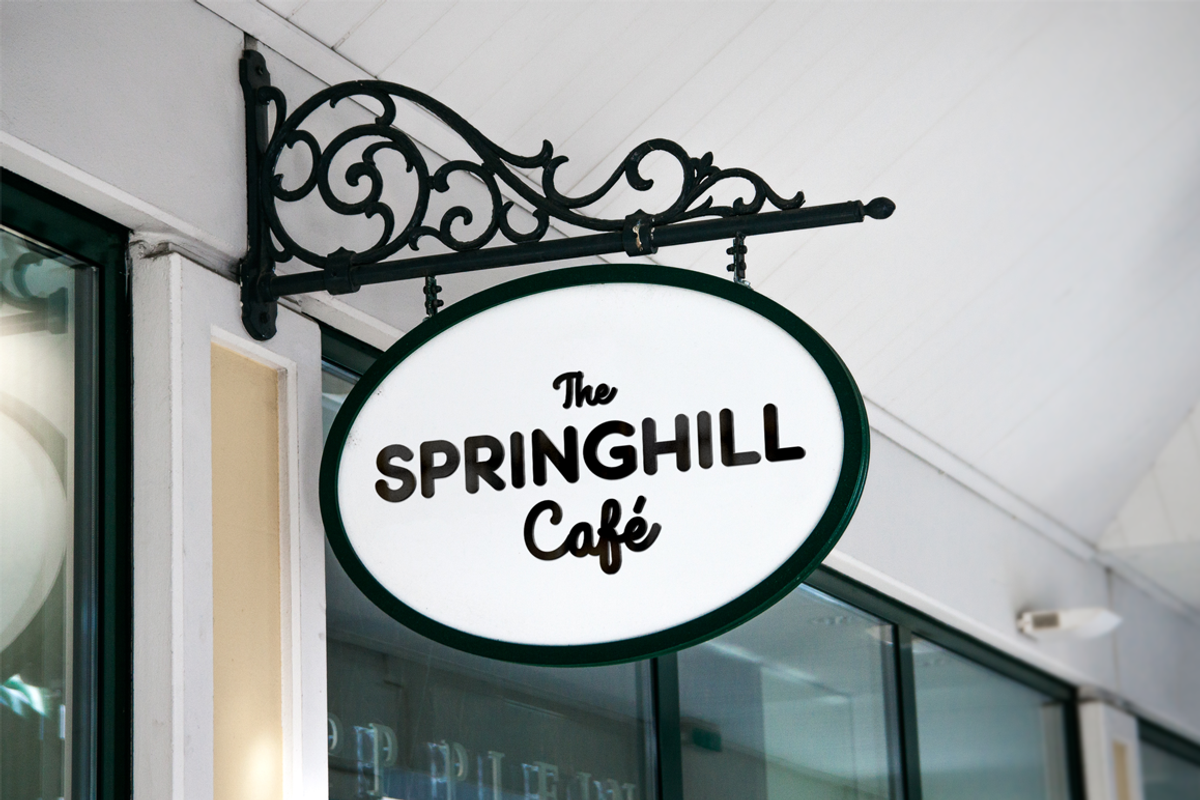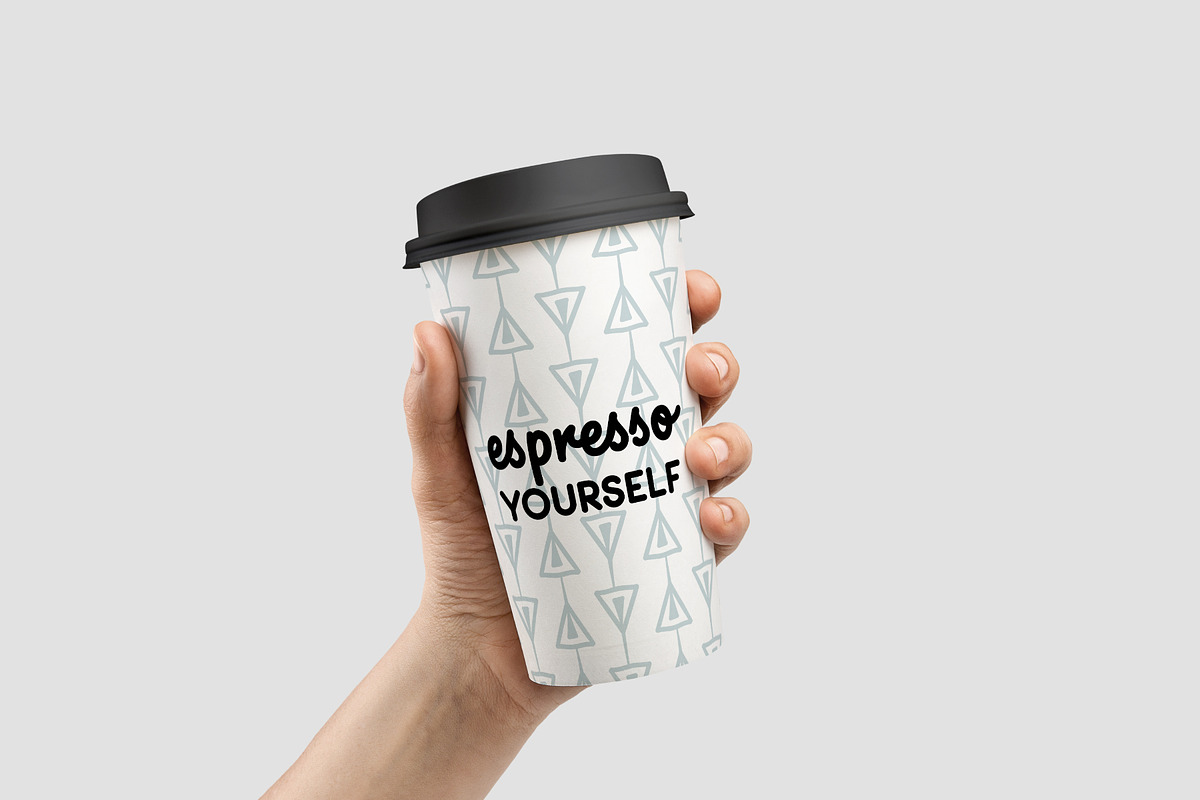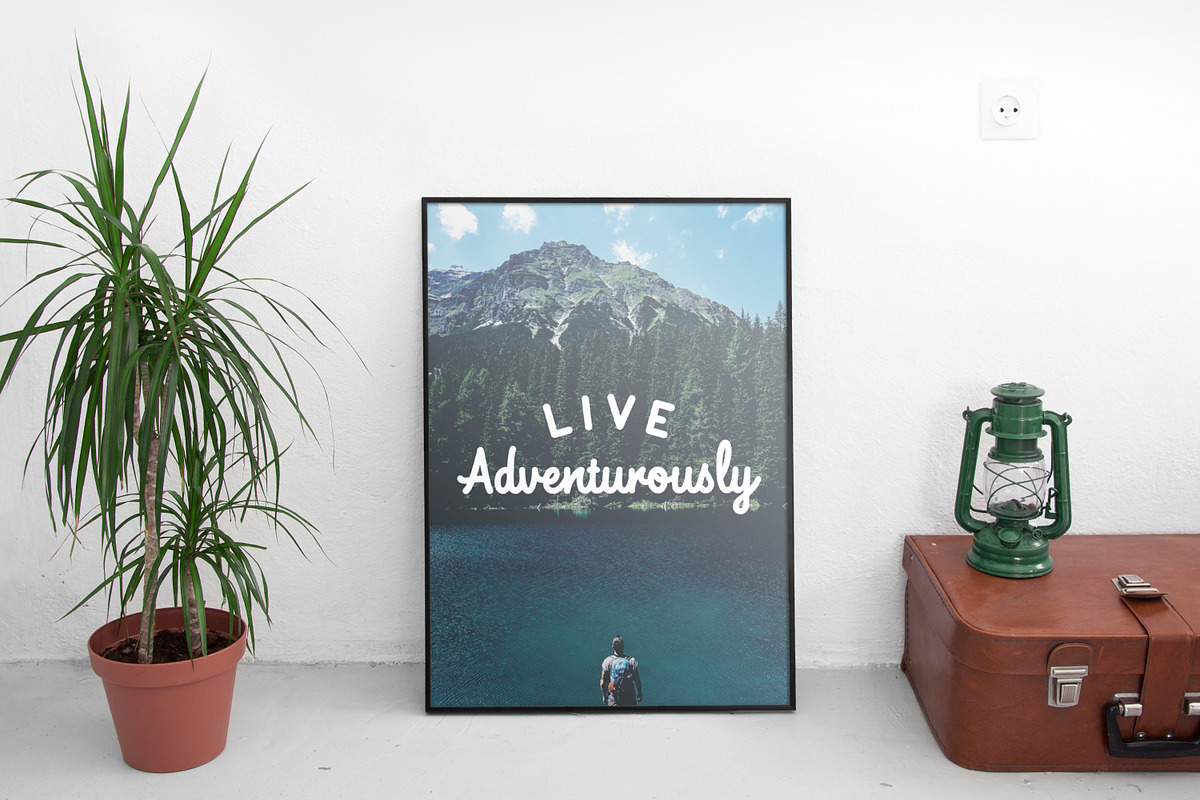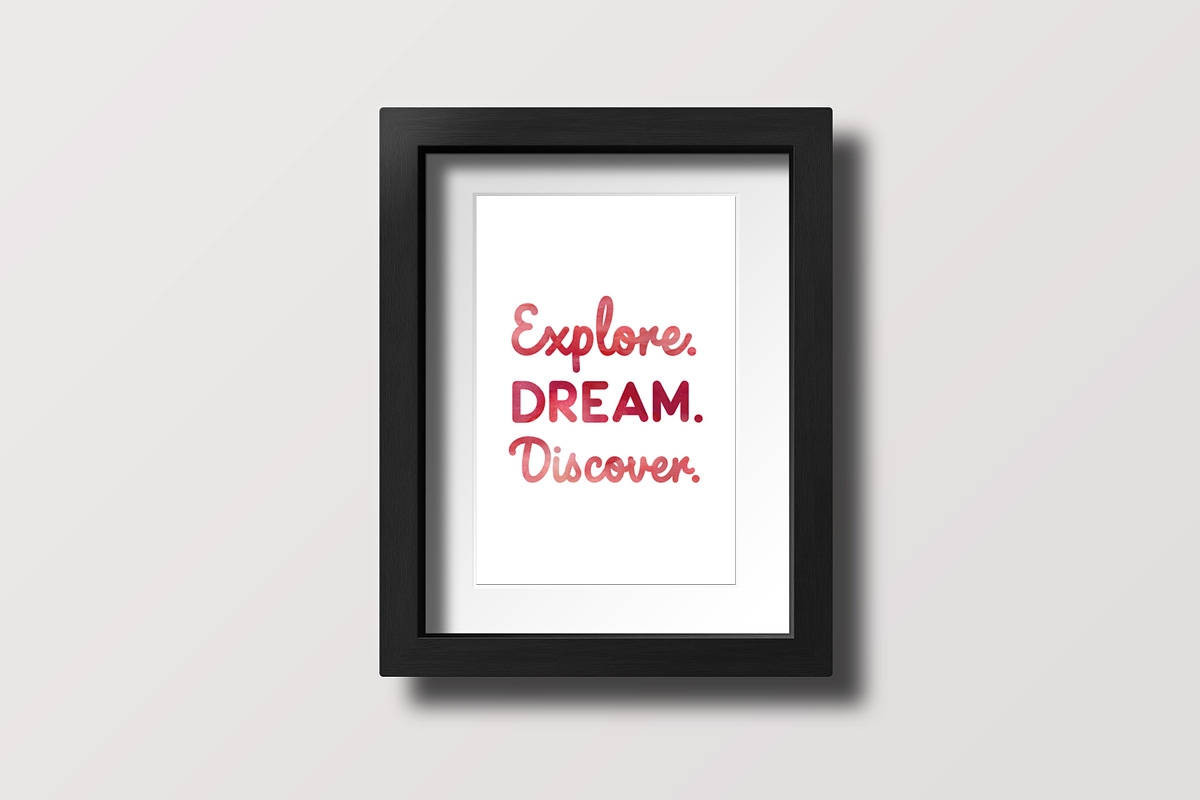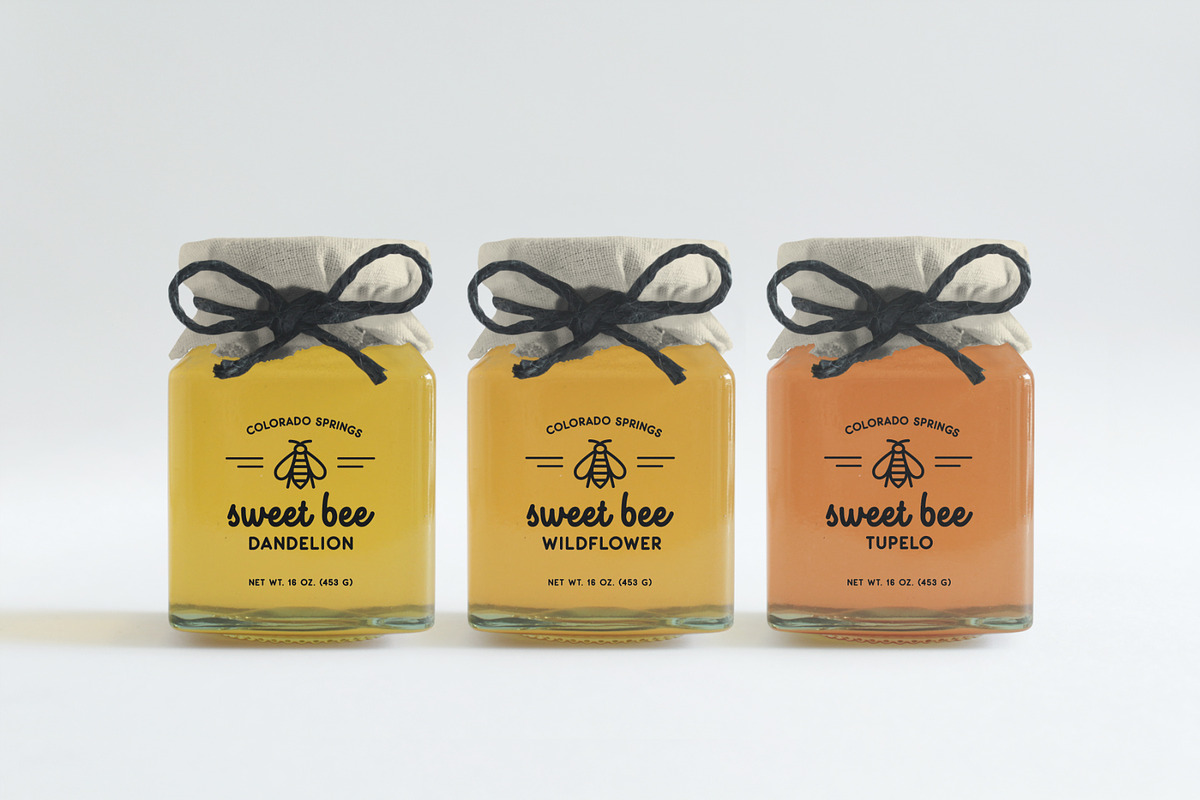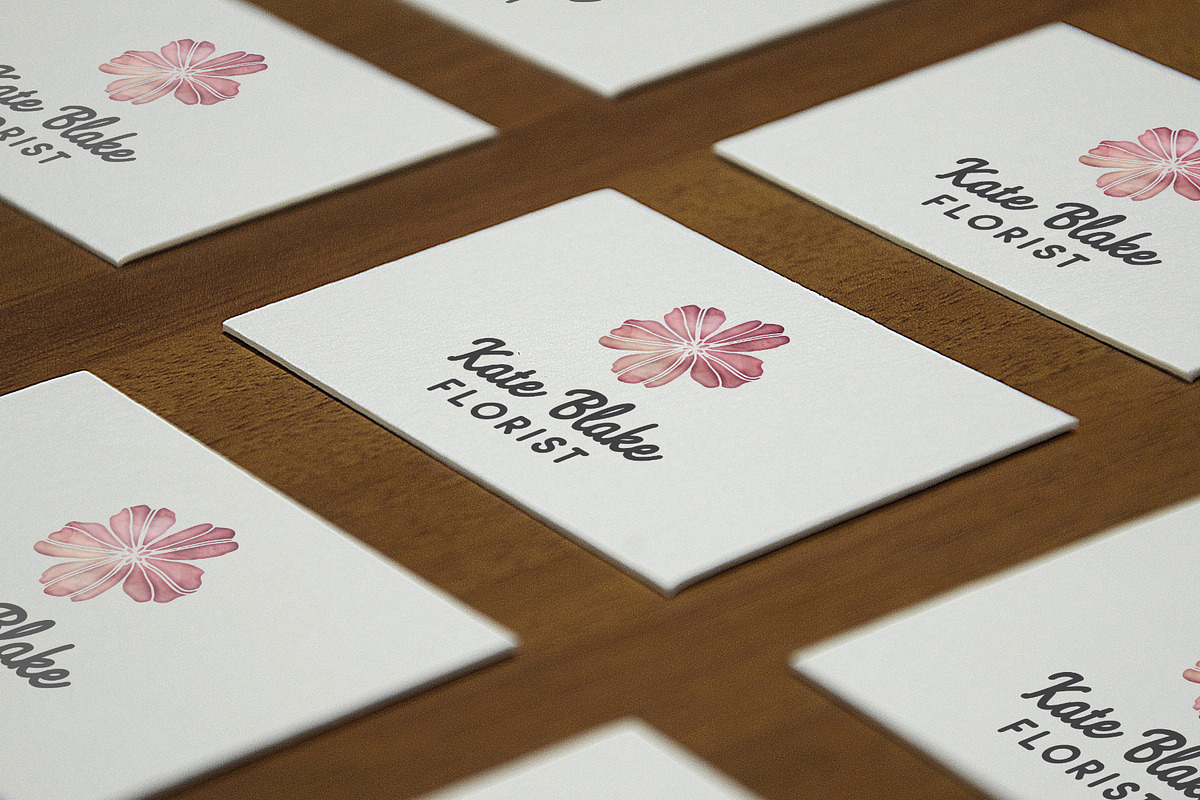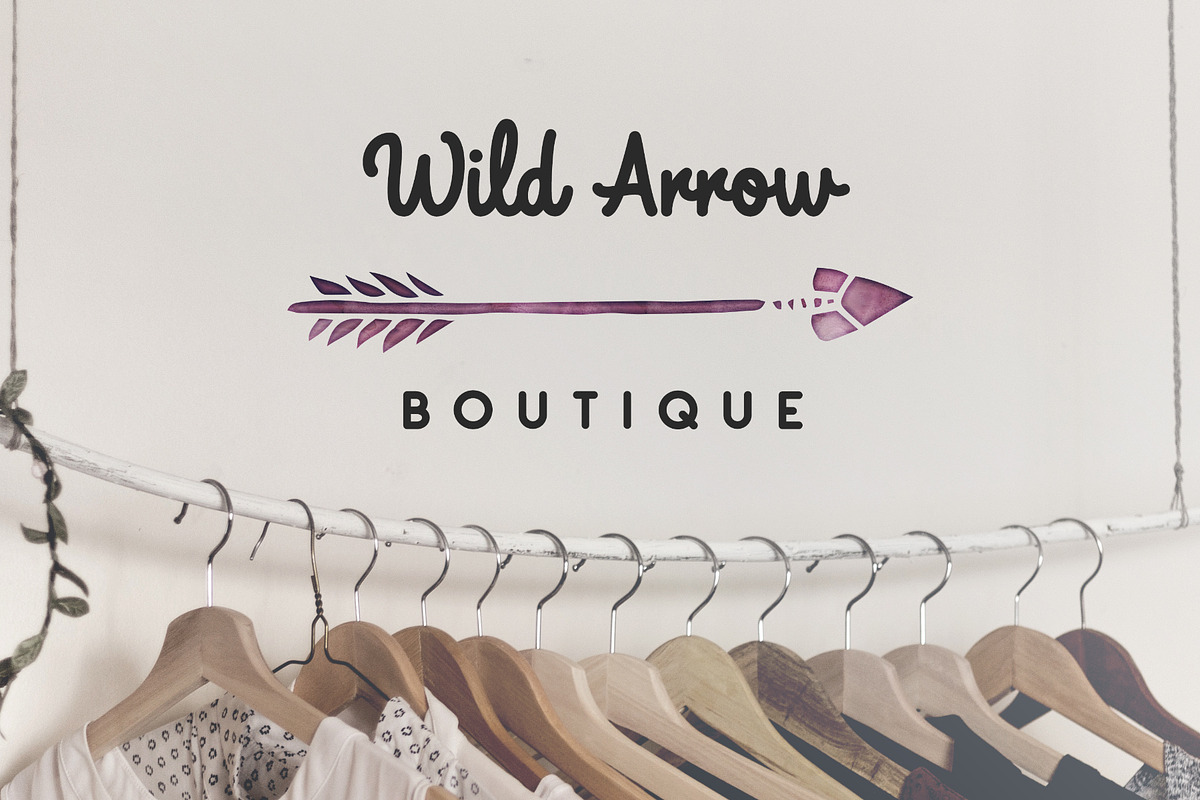
Besties - Font Duo
Introducing Besties - The perfect pair!
This fun and friendly typeface duo includes a monoline script and rounded sans-serif. Use these in combination with each other to create posters, logos, packaging, greeting cards—you name it!
Besties - Script (otf & ttf) A cute monoline script with plenty of character.
Besties - Sans (otf & ttf) A solid single weight sans serif style that supports any font with secondary level wording.